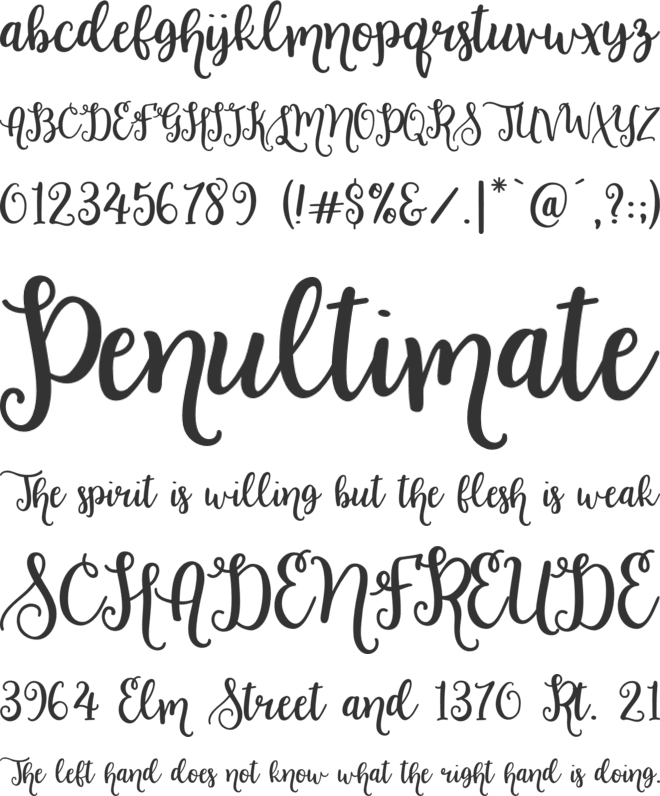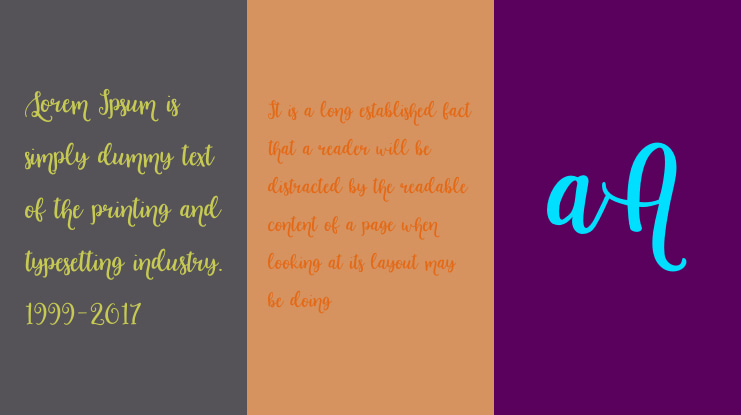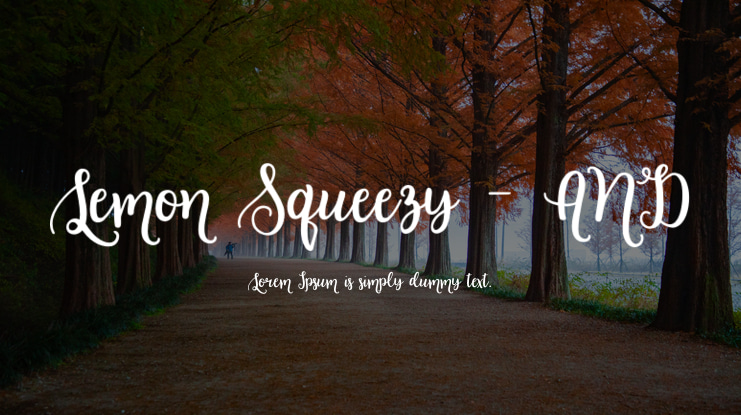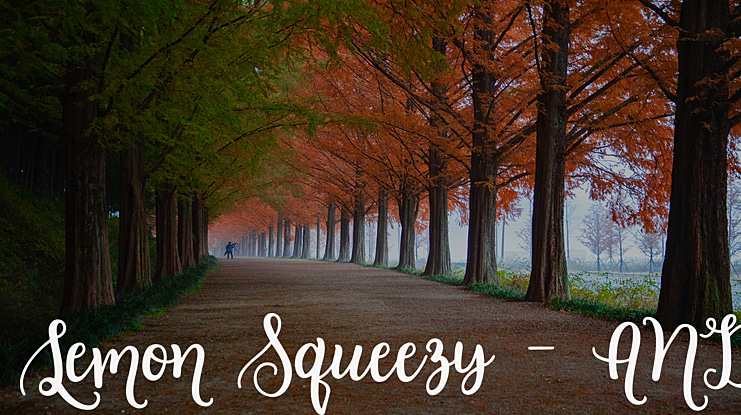
Lemon Squeezy - AND Font
Introducing Lemon Squeezy a fresh-squeezed script!
This font was designed remembering childhood halcyon days of summer gardens, chillaxin' with my homies the cats, bugs and flowers, and making lemonade with lemons from the lemon tree in the front yard.